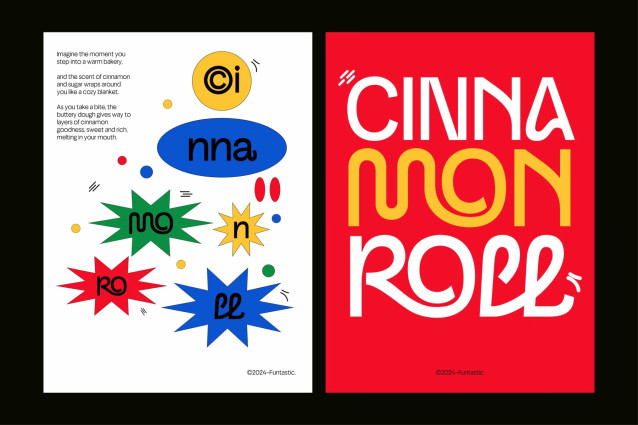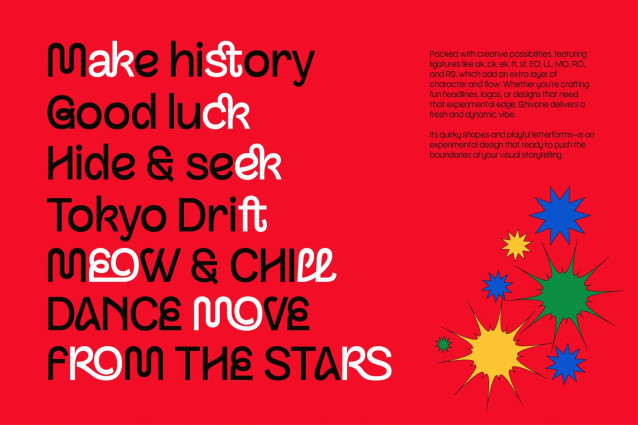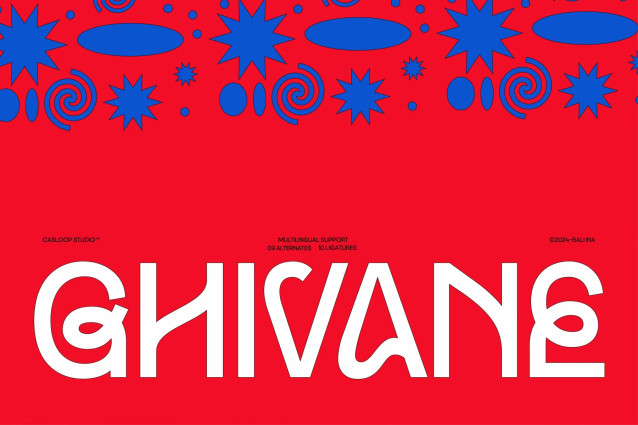
Ghivane – Quirky Trendy Logo Font
Ghivane: The Typeface That Defines Minimalist Charm and Playful Sophistication
Meet Ghivane – a minimalist and unique typeface that merges the clean structure of Sans Serif with the flowing gestures of script design. Its sleek, edgy, and decorative style makes it the ultimate choice for designers looking to create designs that are both trendy and charming. Whether you’re designing for corporate identity, branding, or editorials, Ghivane ensures your work will stand out effortlessly.
Ghivane’s monolinear design combines smooth curves, playful loops, and meandering tails, offering a blend of loopy Sans flexibility and script-inspired flair. The flickers and bends at its intersections give it a casual yet attractive vibe, perfect for hipster branding and modern aesthetics. Ghivane’s flowness and curly details bring a unique sense of movement, making it ideal for motion graphics, text animations, and digital media visuals.
Ghivane’s unique combination of Sans Serif structure and script gestures ensures versatility across a variety of uses. From websites and logos to packaging and magazines, its balance of clean precision and decorative charm elevates any project. Whether you’re crafting a bold headline, a sophisticated label, or a stylish advertisement, Ghivane adapts effortlessly to your vision while maintaining its trendy edge.